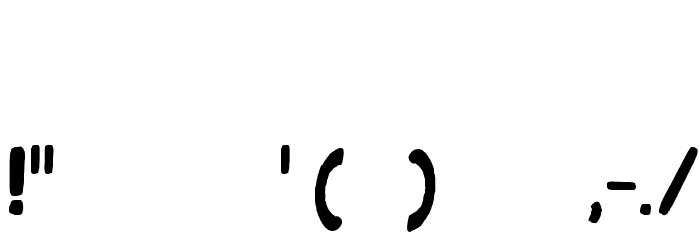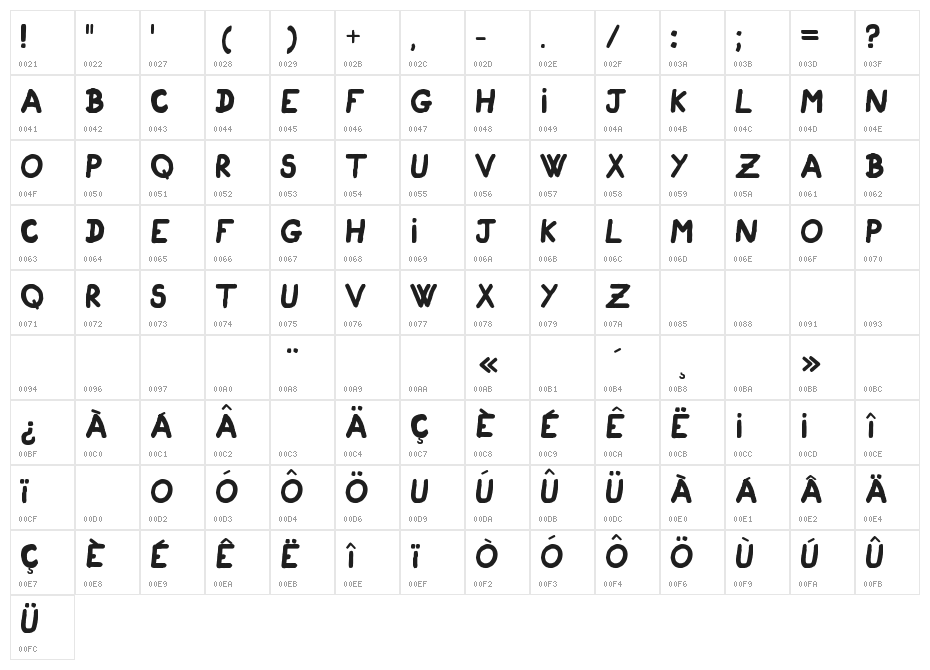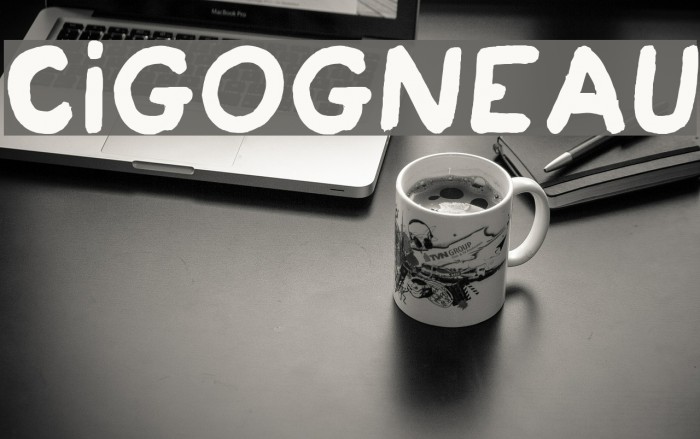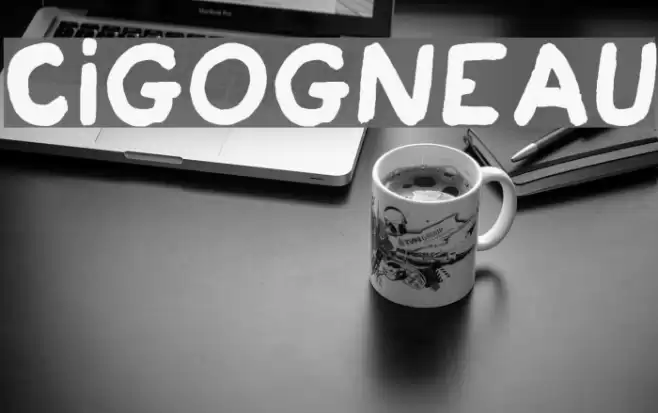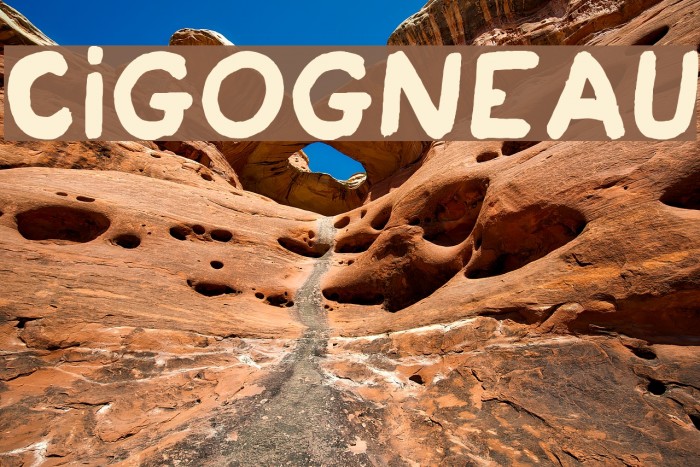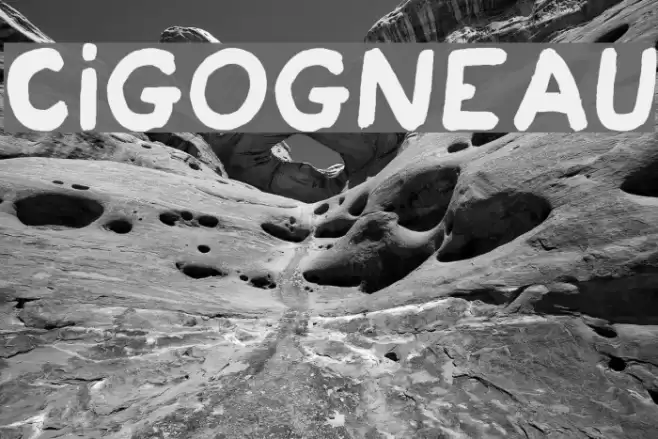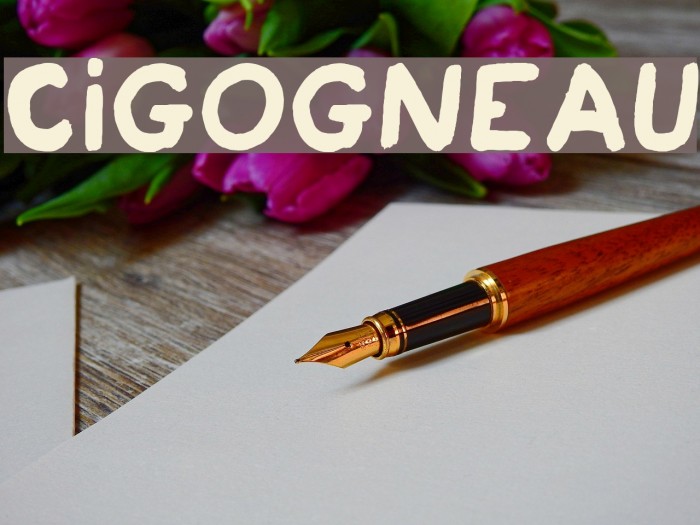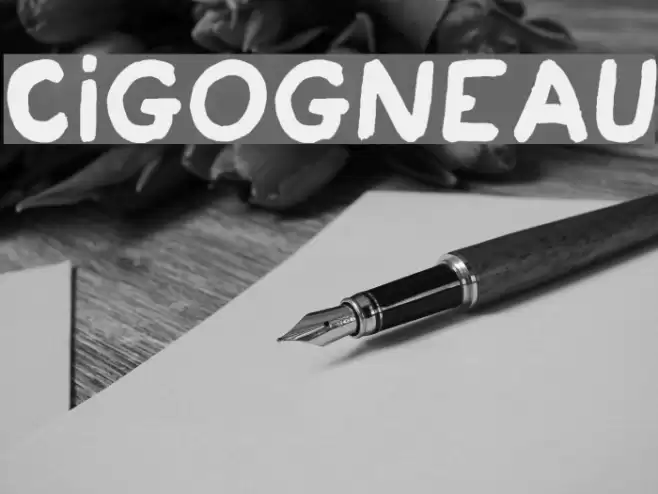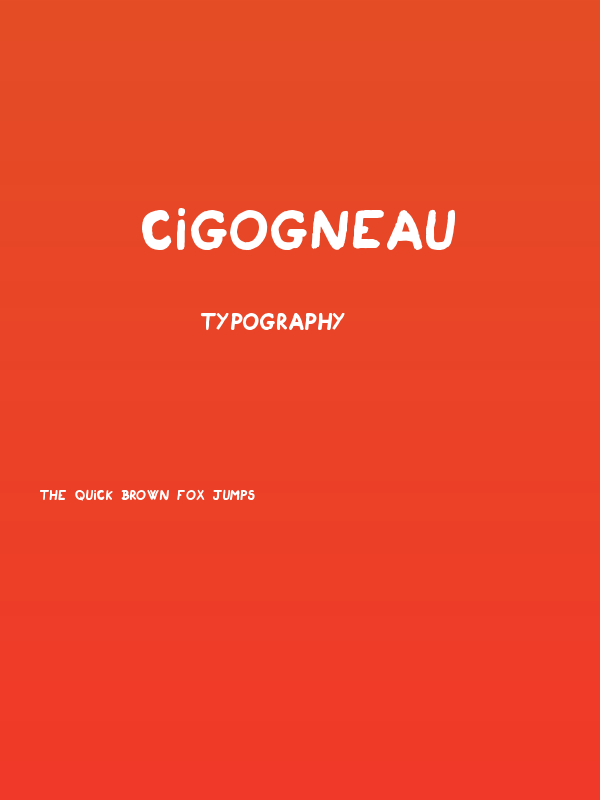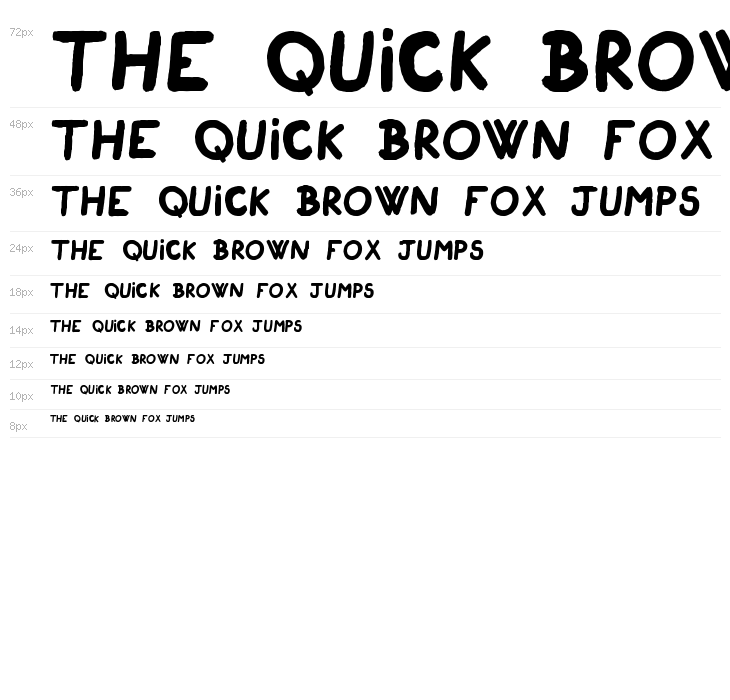
Cigogneau Font
Cigogneau Description
This font features a playful and bold handwritten style, characterized by its thick strokes and slightly irregular shapes that give it a casual and friendly appearance. The uppercase and lowercase letters maintain a consistent weight, contributing to a cohesive look. The rounded edges and slight slant add to its informal charm, making it suitable for projects that require a personal touch. The numerals and special characters are designed to match the overall style, ensuring versatility in various applications.
| Overall Style | Playful, Casual |
| Proposed Projects | Ideal for children's books, greeting cards, playful branding, and informal invitations. |